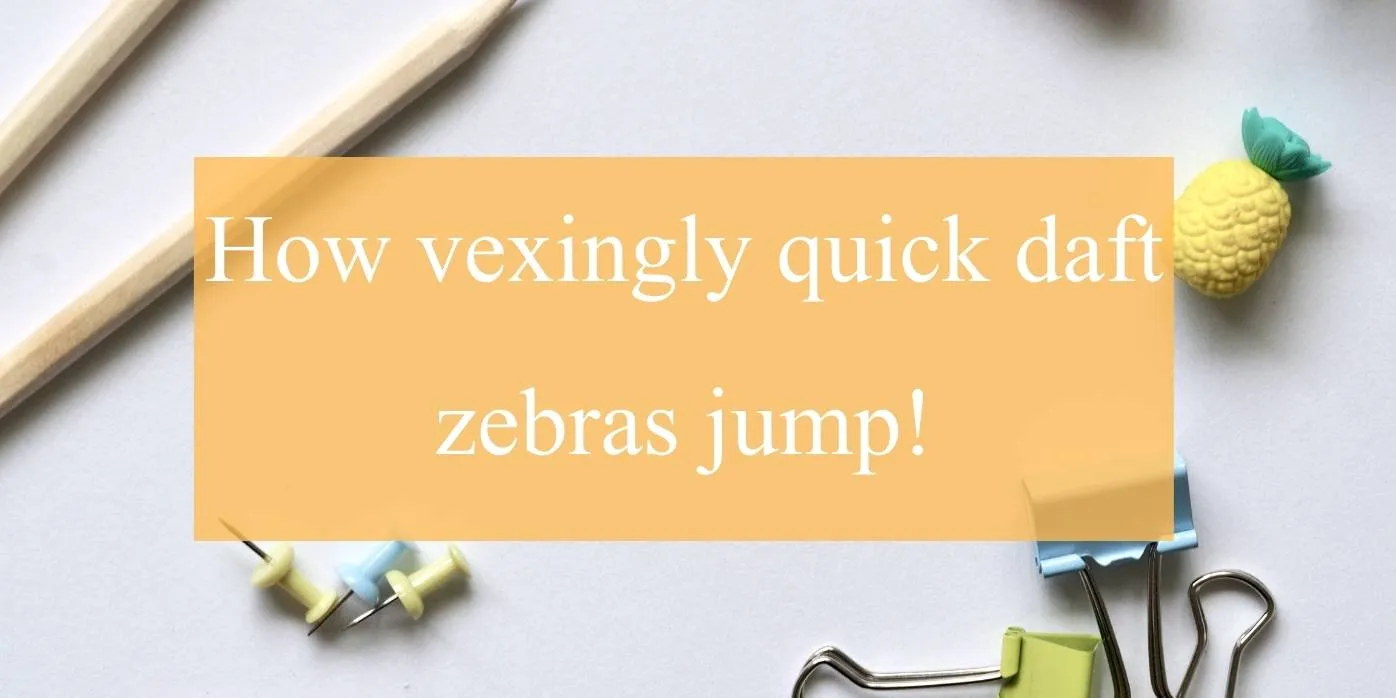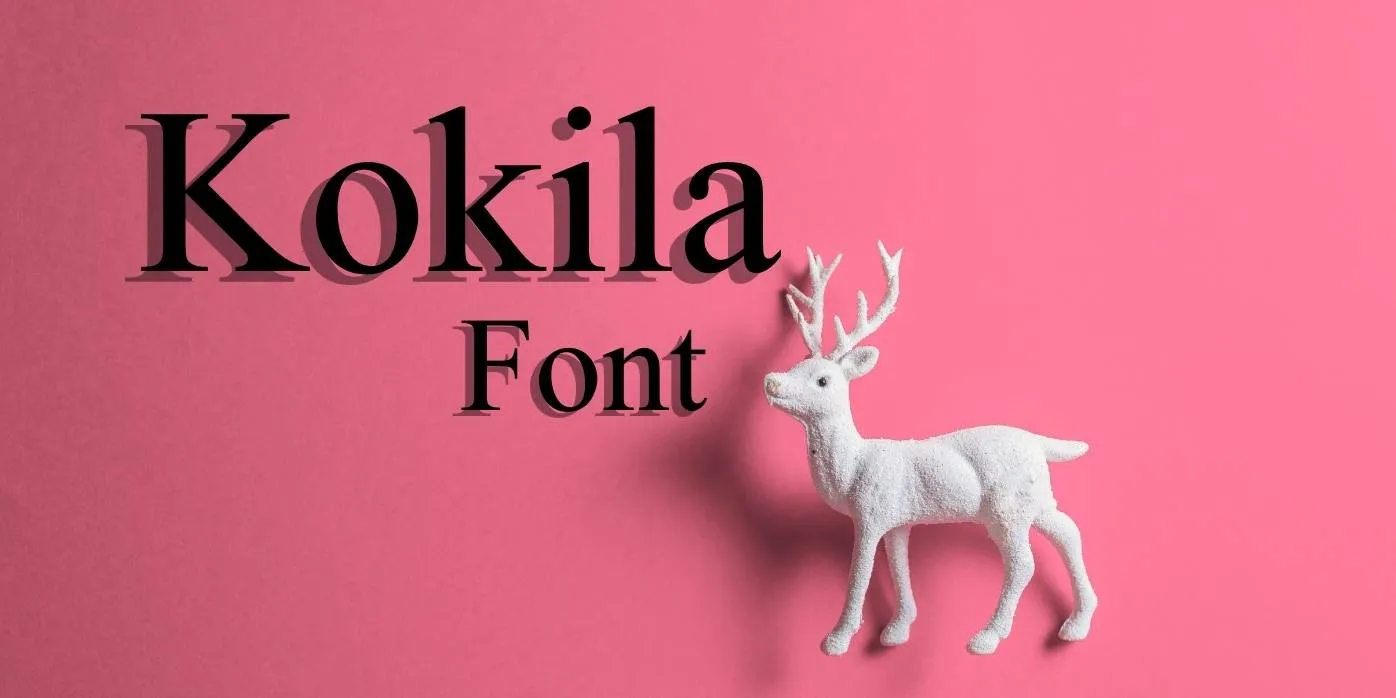
Kokila Font
We present the most famous Kokila Font that was designed by Modular InfoTech. It belongs to the Serif typeface. This staggering Font is widely used in books and newspapers because of its stylish look. This awesome Font has been designed taking inspiration from the Devanagari calligraphy.
This typeface is best for other programs like Adobe. The main aim of this Font was to provide a better alternative to the existing Serif fonts. This cute Font supports both Unicode and Non-Unicode character sets. This Font was first released in the year 2004 and it became very popular among readers and designers very professional and stylish look that can be used for both personal and official purposes.